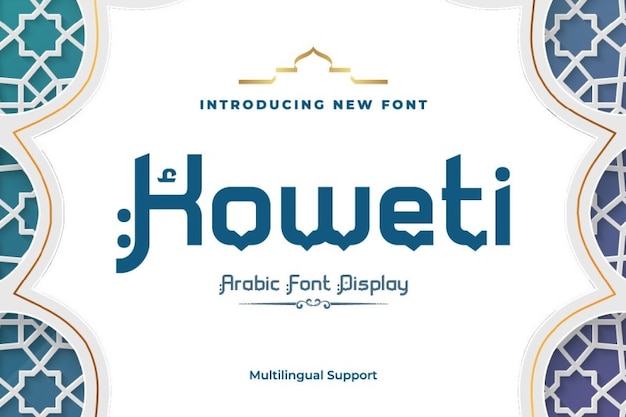
Luxurious and aesthetic. The Koweti font is an Arabic style typeface specially designed to bring harmony and prestige to your creations. This font embodies the best arabesque elements with its beautiful curves and elegant corners. Download it now!
Koweti (400)